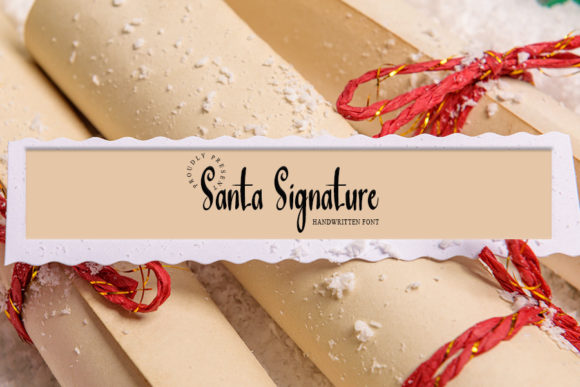
Step into a world of love and enchantment with "Santa's Signature Font" – a handwritten script font that dances and twirls across your digital canvas. Its casual strokes, reminiscent of a love letter penned by a smitten heart, add a touch of warmth and allure to any project.
As you explore the depths of this captivating font, you'll discover its charming imperfections, its playful ascenders and descenders, and its sweeping ligatures that intertwine like lovers in a tender embrace. Each letter is a masterpiece, a testament to the artistry and passion that went into its creation.
With "Santa's Signature Font," you hold the key to unlocking the hearts of your audience. Its romantic aura makes it the perfect choice for crafting love poems, wedding invitations, greeting cards, and other heartfelt creations. Let the flowing characters carry your words of adoration, whispered secrets, and heartfelt confessions.
Whether you're a poet, a designer, or simply someone who appreciates the beauty of words, "Santa's Signature Font" is your muse. It's a font that sparks creativity, ignites passion, and leaves a lasting impression on all who encounter it.
Embrace the magic of "Santa's Signature Font" today and let your words take flight on wings of love.